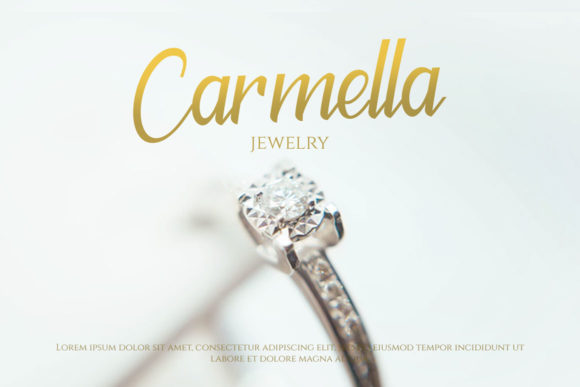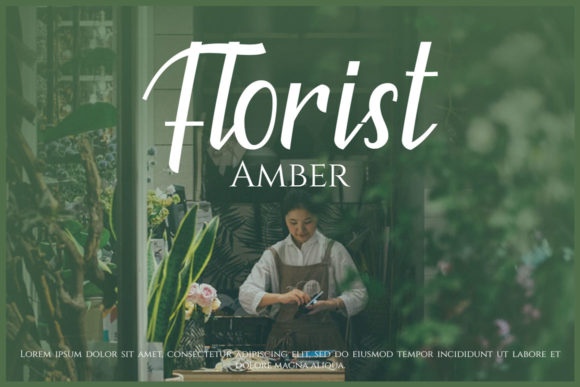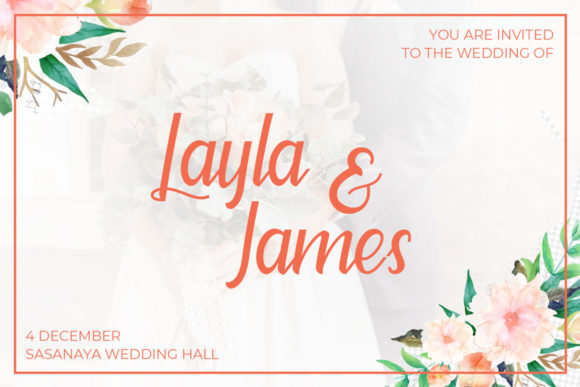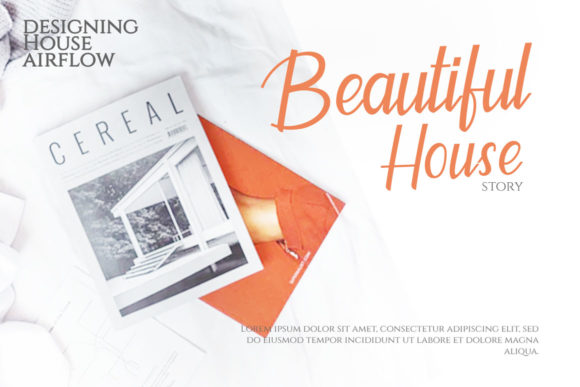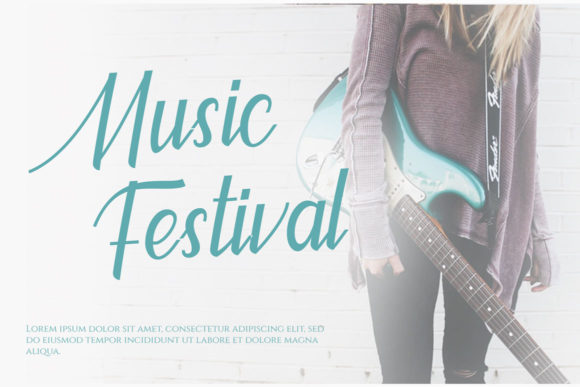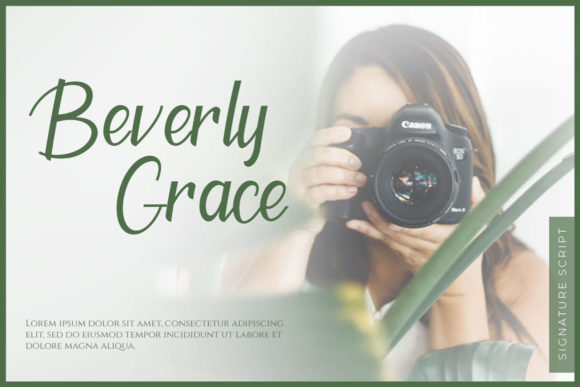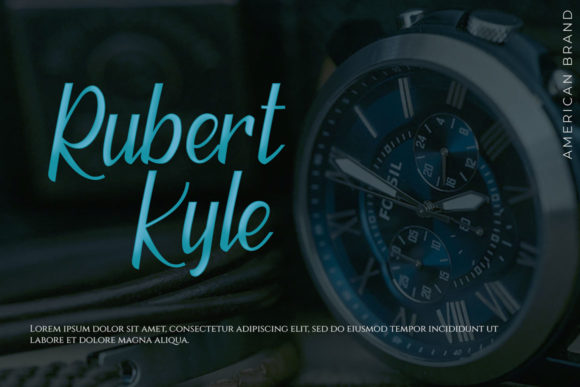
Madeline Font
About Madeline Font
Madeline is a beautiful handwritten typeface featuring one-of-a-kind style. Use it for any design project that requires a personalized appearance!